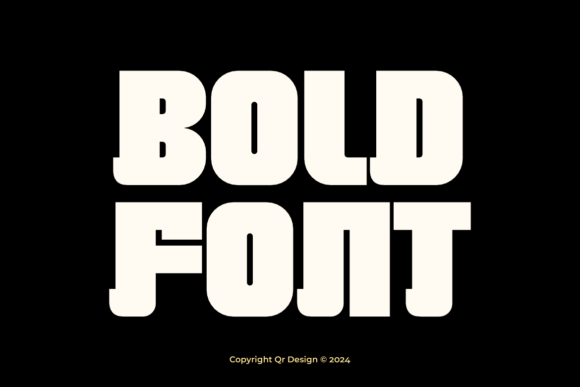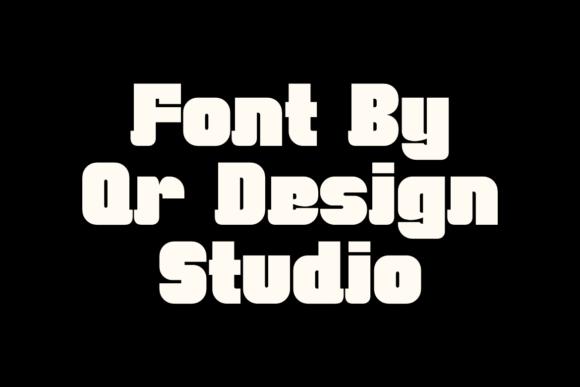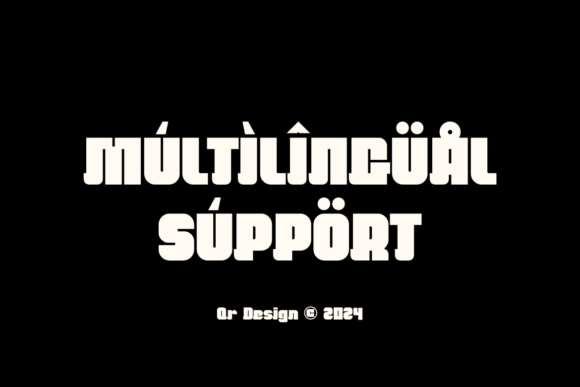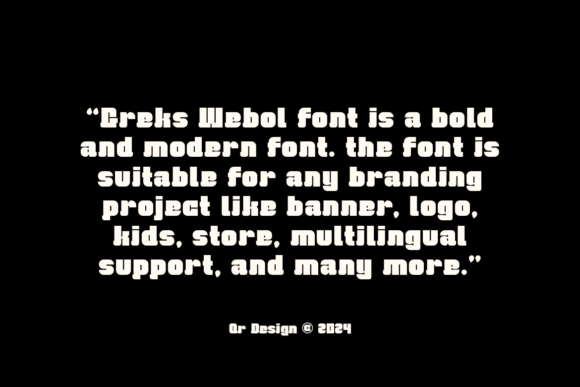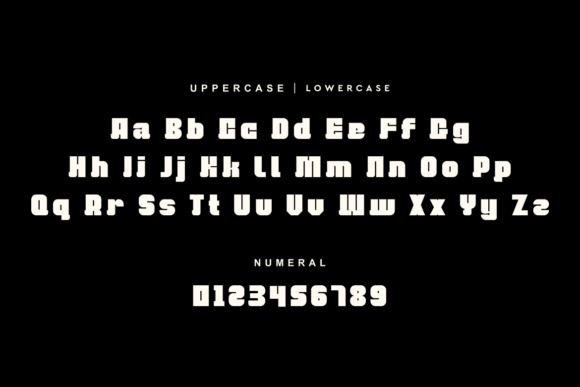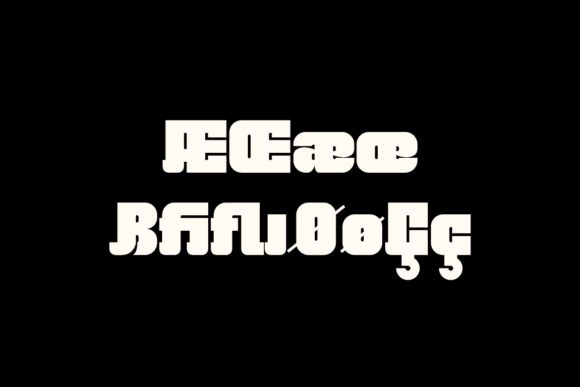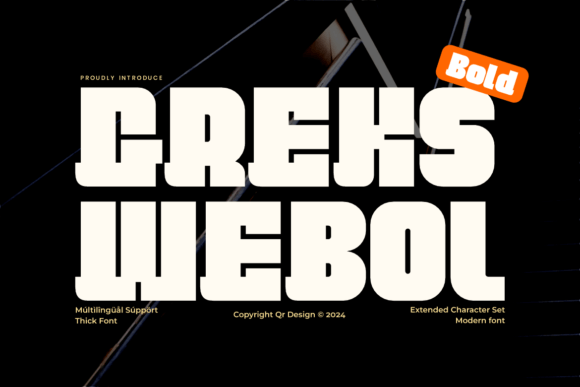
Introducing Greks Webol: The Bold and Assertive Sans Serif Font
In the world of typography, fonts play a crucial role in conveying messages, expressing emotions, and creating visual identities. For designers and crafters, having a versatile and high-quality font in their library can make all the difference in their creative projects. This is where Greks Webol comes in – a bold and assertive sans serif font that can elevate any creation.
What is Greks Webol?
Greks Webol is a modern sans serif font designed to make a statement. Its bold and assertive personality makes it perfect for a wide range of applications, from headlines and titles to logos and branding materials. With its clean and sleek lines, Greks Webol exudes confidence and sophistication, making it an excellent addition to any font library.
Key Features of Greks Webol
- Bold and Assertive: Greks Webol is designed to grab attention and make a statement. Its bold weight and assertive style make it perfect for headlines, titles, and emphasis.
- Sans Serif: The font features a clean and modern sans serif design, making it easy to read and versatile for various applications.
- Highly Legible: Greks Webol is optimized for readability, ensuring that your message gets across clearly and effectively.
- Wide Range of Applications: From logos and branding materials to headlines and body text, Greks Webol can be used in various creative projects.
Benefits of Using Greks Webol
- Elevate Your Creations: Greks Webol can instantly elevate your designs, giving them a professional and polished look.
- Stand Out from the Crowd: With its bold and assertive personality, Greks Webol can help your designs stand out in a crowded market.
- Consistency: Using Greks Webol across your designs can help maintain consistency and create a strong visual identity.
Who Can Benefit from Greks Webol?
Greks Webol is an excellent addition to any designer’s or crafter’s font library, regardless of their specific niche or industry. Here are some professionals who can benefit from this font:
- Graphic Designers: Greks Webol is perfect for graphic designers who need a bold and assertive font for their designs.
- Logotype Designers: The font’s clean and modern design makes it suitable for logotype designs and branding materials.
- Digital Artists: Greks Webol can add a professional touch to digital art, illustrations, and mixed media projects.
In conclusion, Greks Webol is a versatile and high-quality sans serif font that can elevate any creative project. Its bold and assertive personality, combined with its clean and modern design, make it an excellent addition to any font library. Whether you’re a designer, crafter, or simply someone who appreciates great typography, Greks Webol is definitely worth considering.